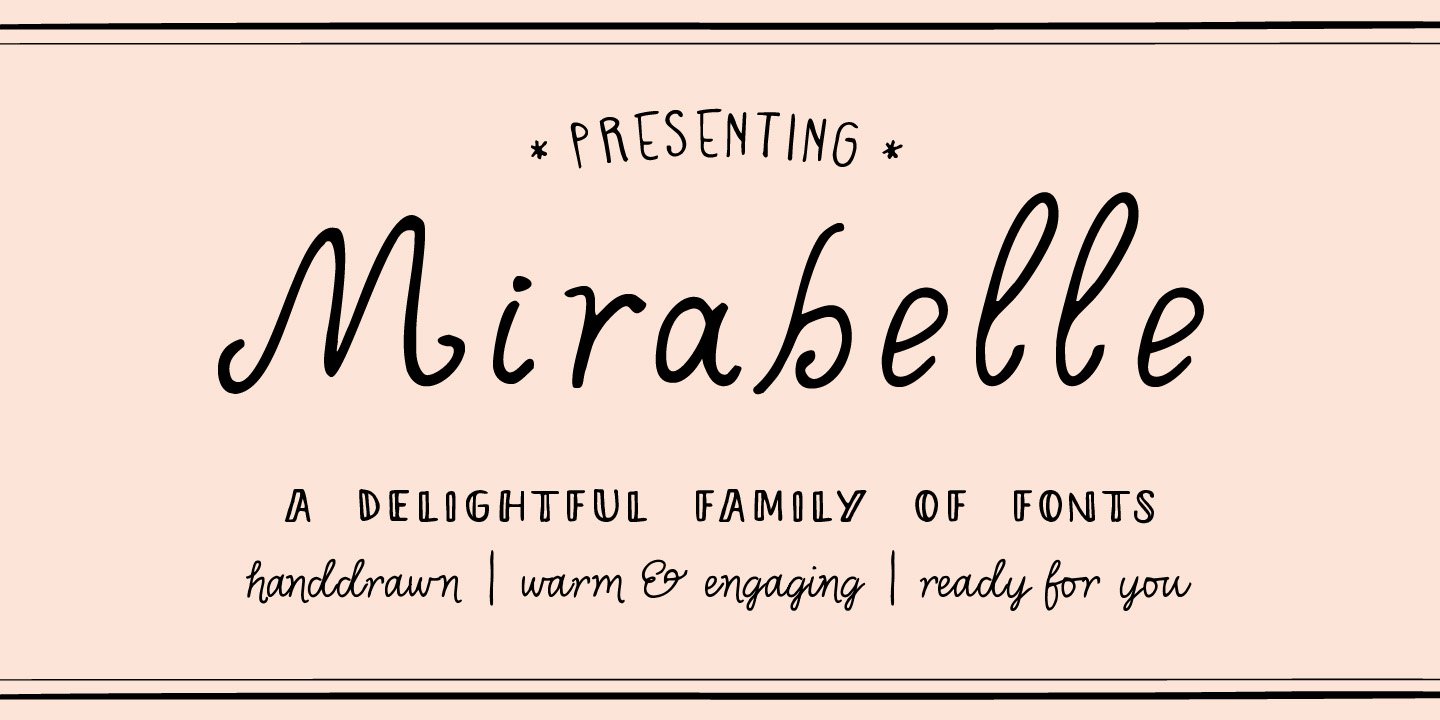
The Mirabelle Font is perfect for various design applications including French pastry branding, elegant bakery logos, romantic wedding invitations, luxury perfume packaging, Parisian boutique graphics, fine French cuisine menus, sophisticated beauty salon materials, and enchanting European travel campaigns. This graceful typeface works exceptionally well for luxury French brands and projects requiring romantic elegance with Parisian charm.
What makes Mirabelle Font exciting is its enchanting and romantic character that instantly transports viewers to the elegant streets of Paris and captures the sophisticated beauty of French culture with timeless grace. The font features delicate letterforms with French elegance and romantic aesthetics that evoke feelings of love, sophistication, and European refinement. Its graceful styling and Parisian-inspired appearance make it perfect for brands that want to embody French elegance and connect with audiences who appreciate romantic luxury and sophisticated European lifestyle.
The Mirabelle Font family includes multiple weights and styles, offering designers flexibility for diverse French luxury applications. The family typically consists of regular, bold, light, and script variations, along with French-inspired decorative elements and romantic ornaments, providing comprehensive coverage for projects that need both elegance and visual charm across different Parisian contexts.
Whether you're working on French luxury brands, romantic event planning, or European lifestyle campaigns, Mirabelle Font Free Download delivers the enchanting quality and visual elegance that modern French-inspired designers seek. The font's Parisian design combined with its excellent readability makes it an essential tool for creating compelling visual communications that celebrate French culture and bring the romantic spirit of Parisian elegance to life.